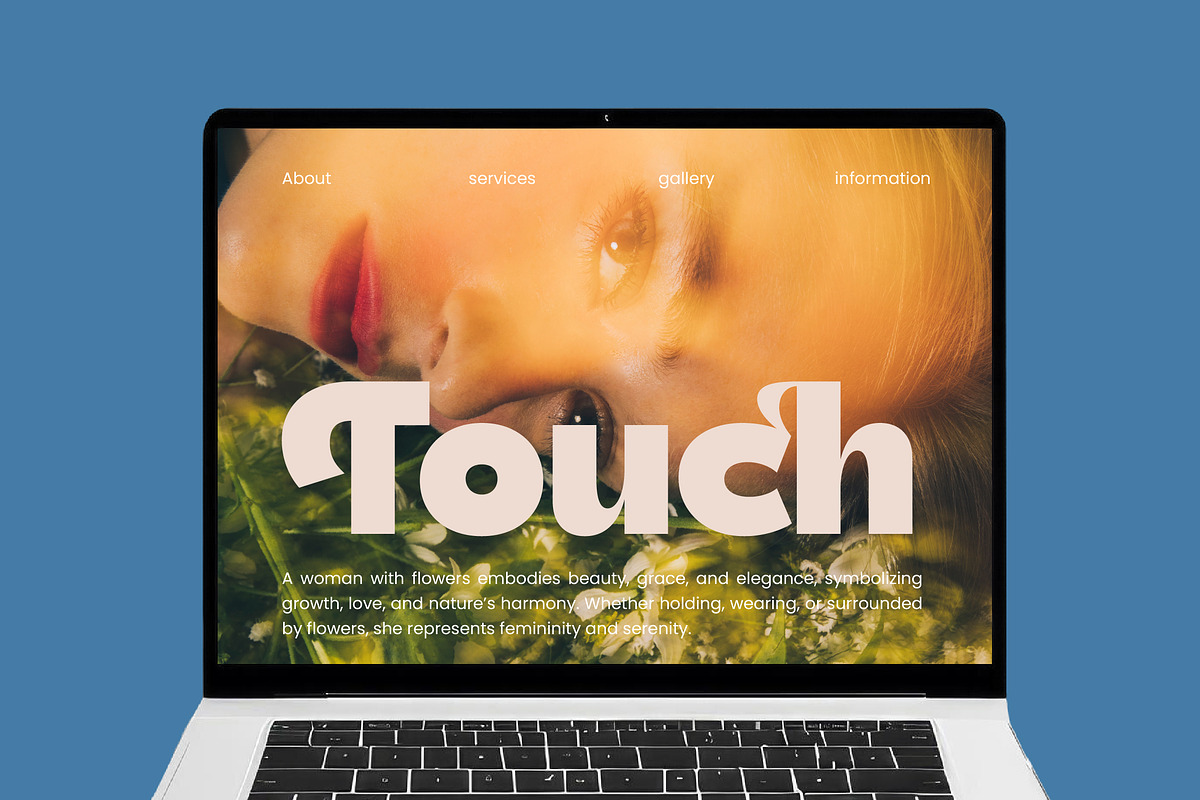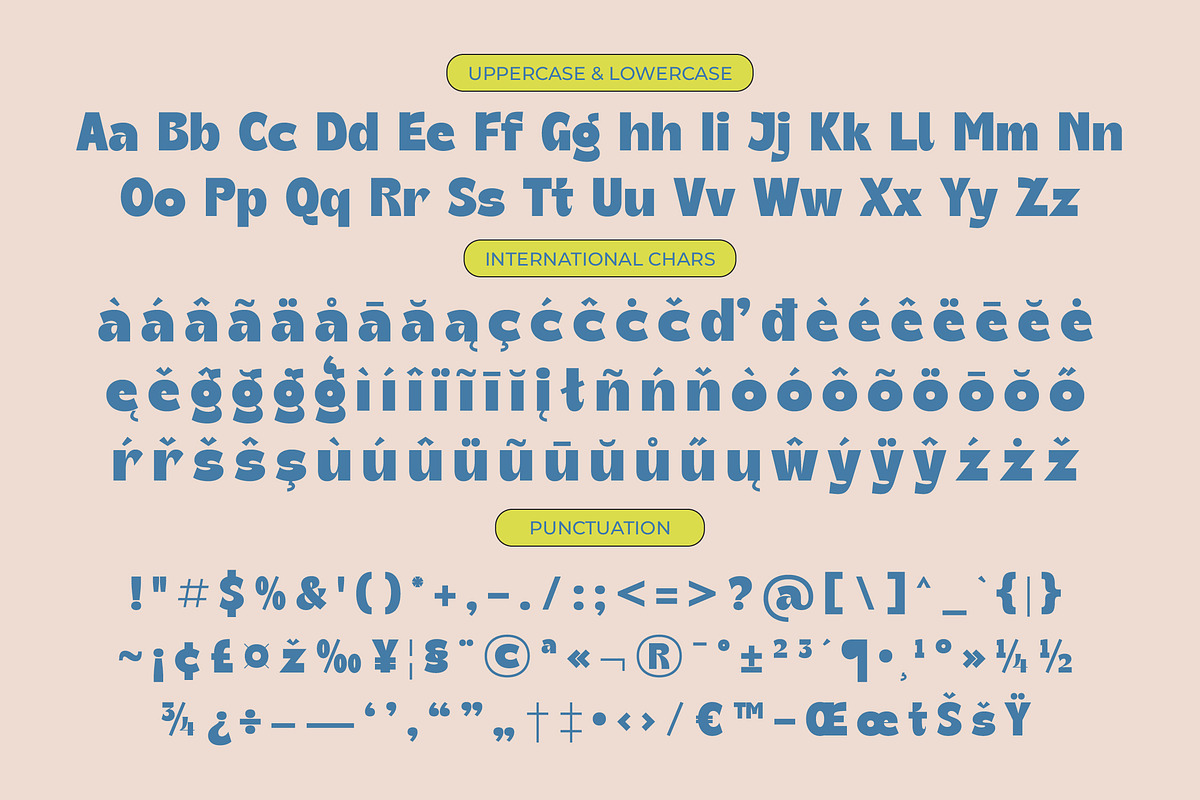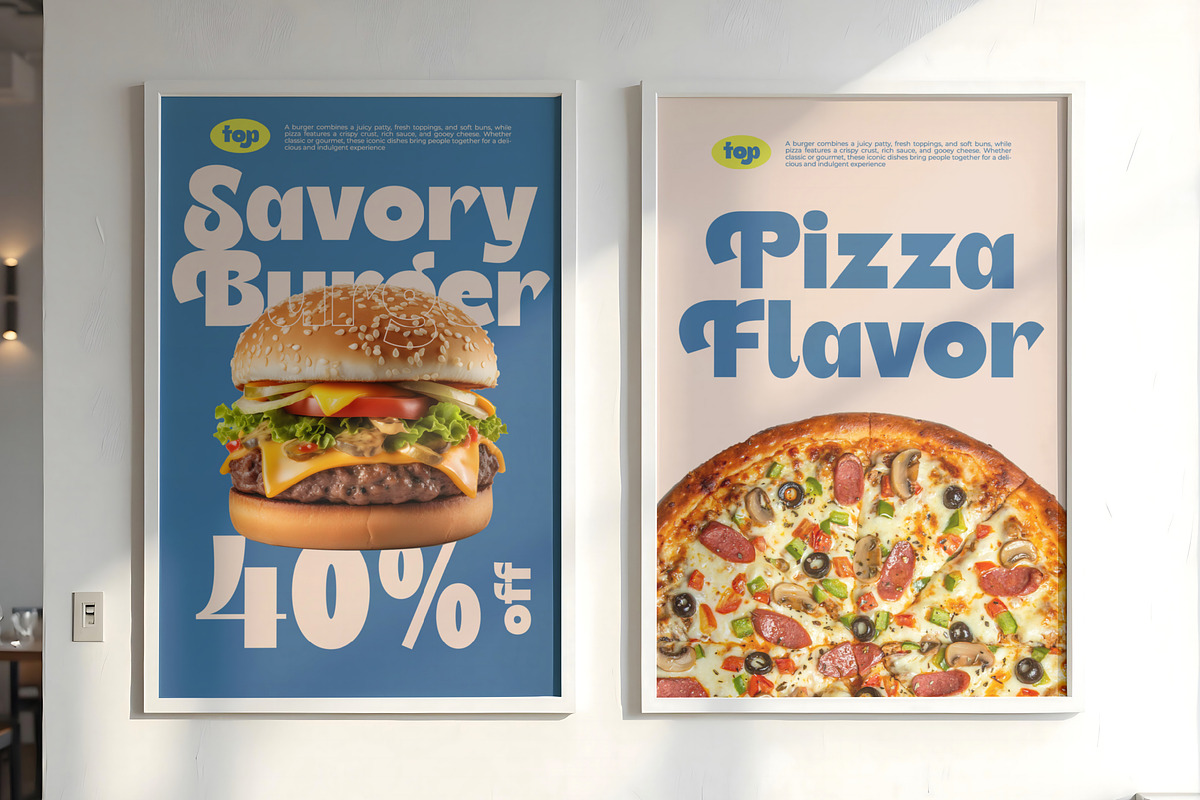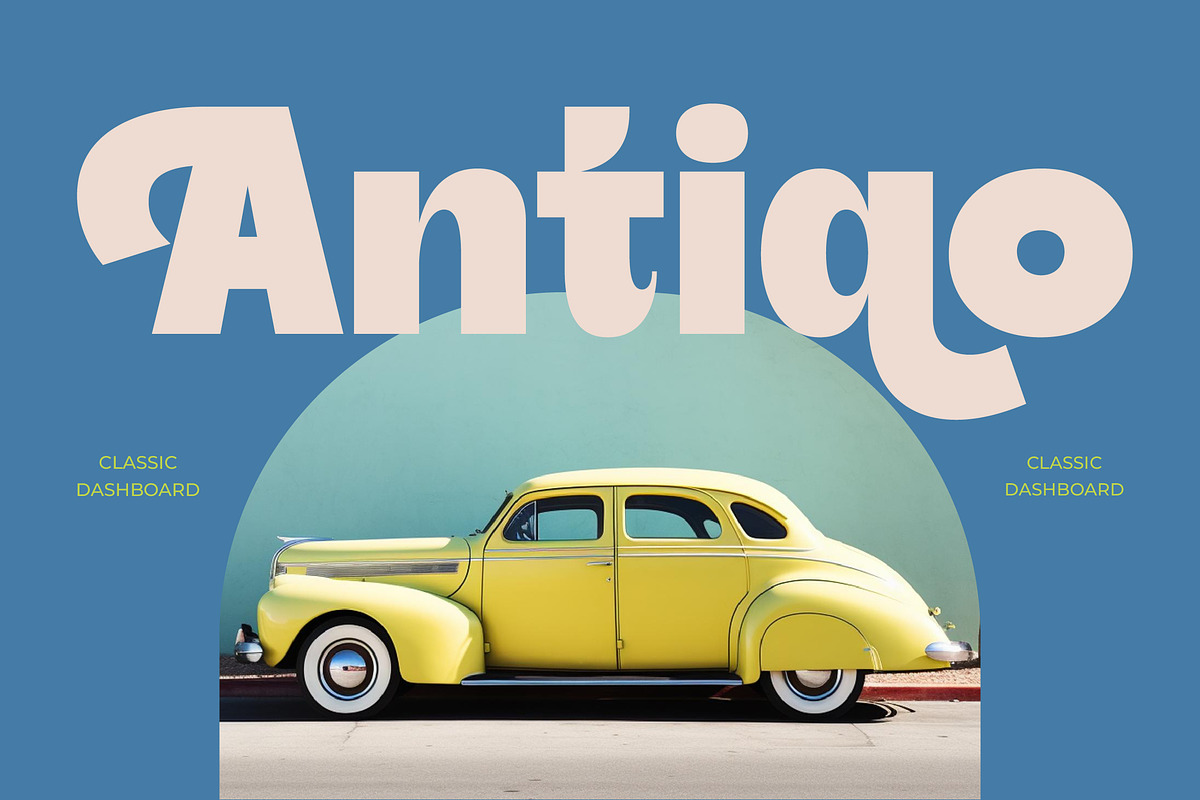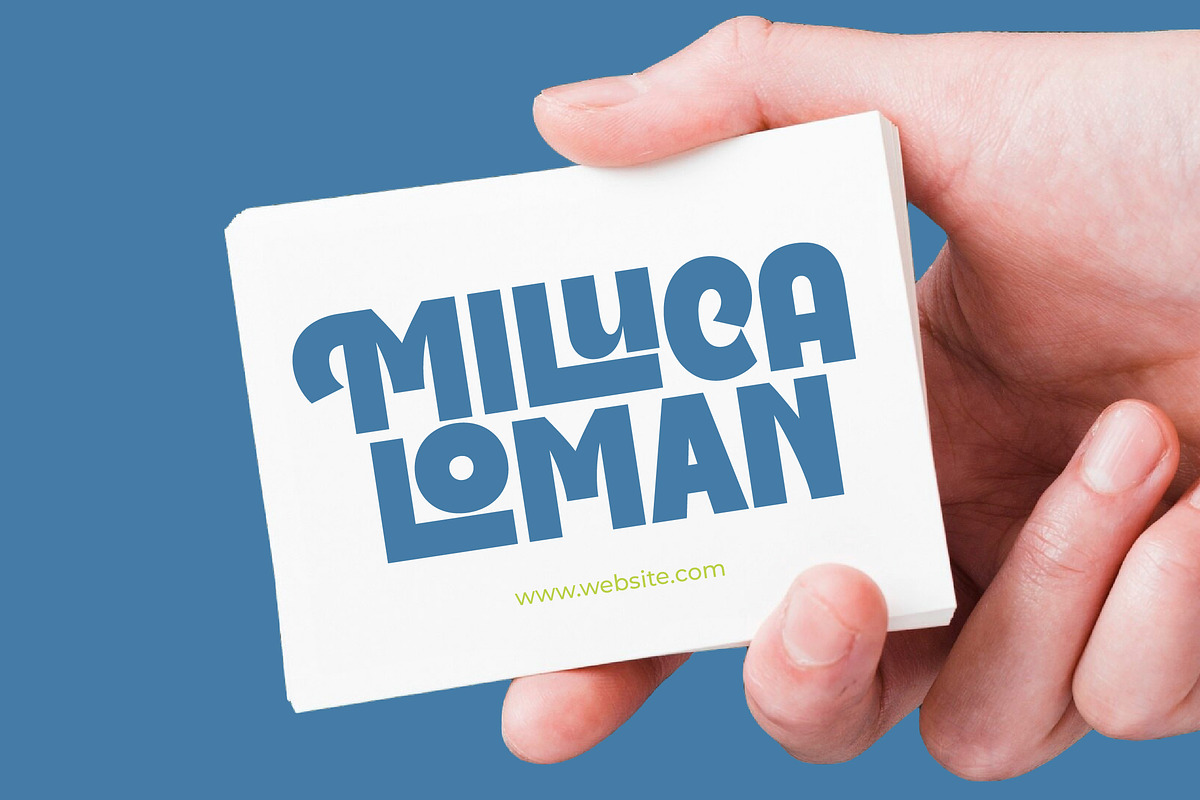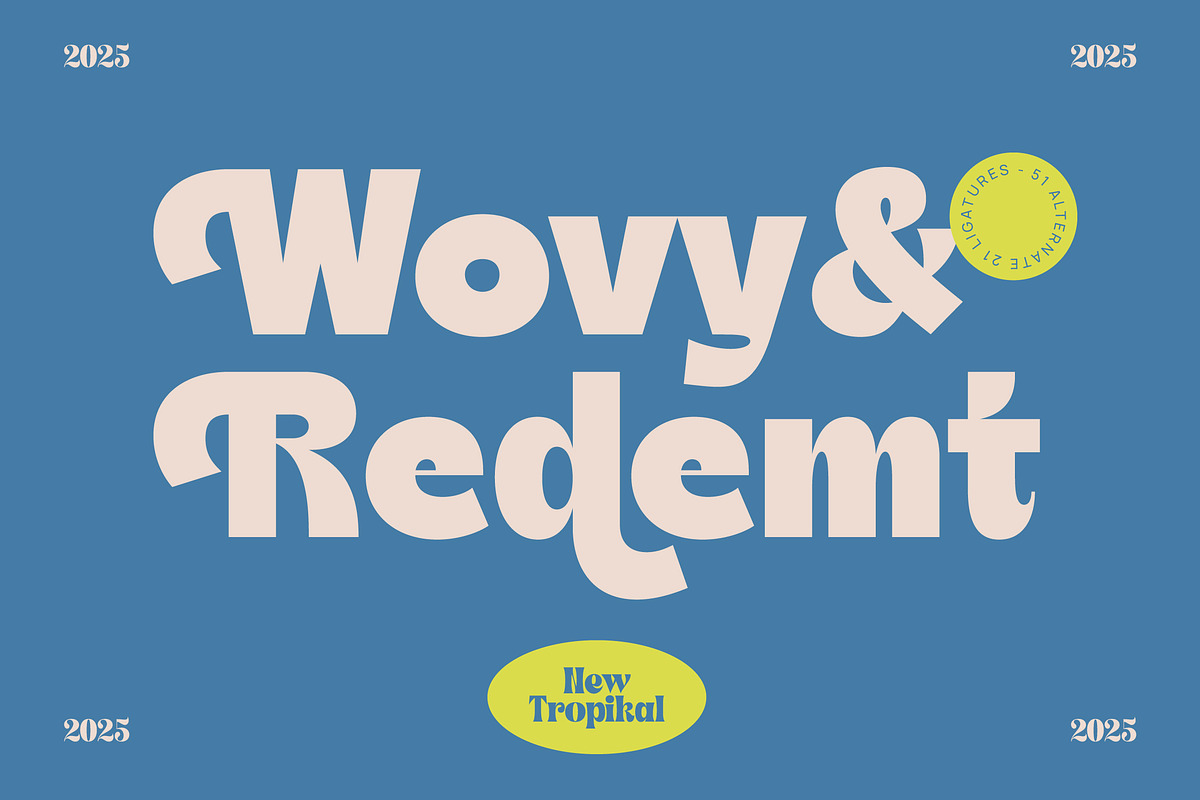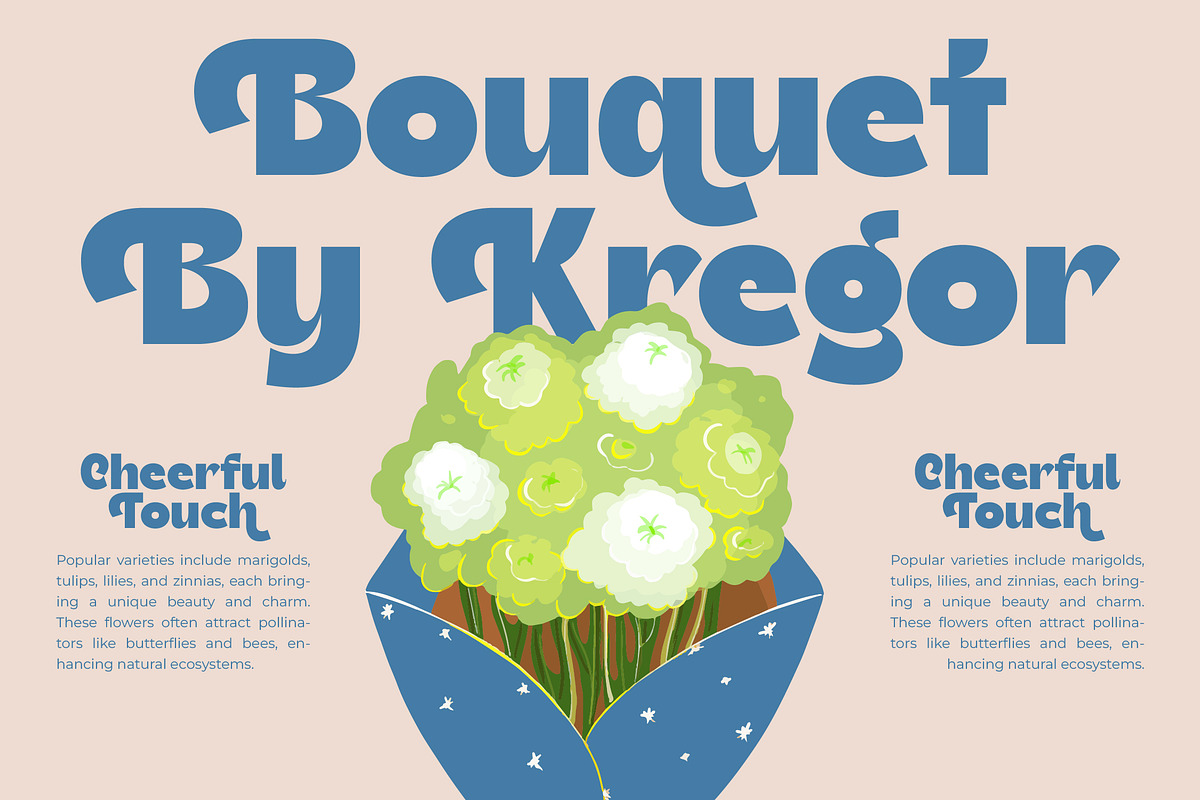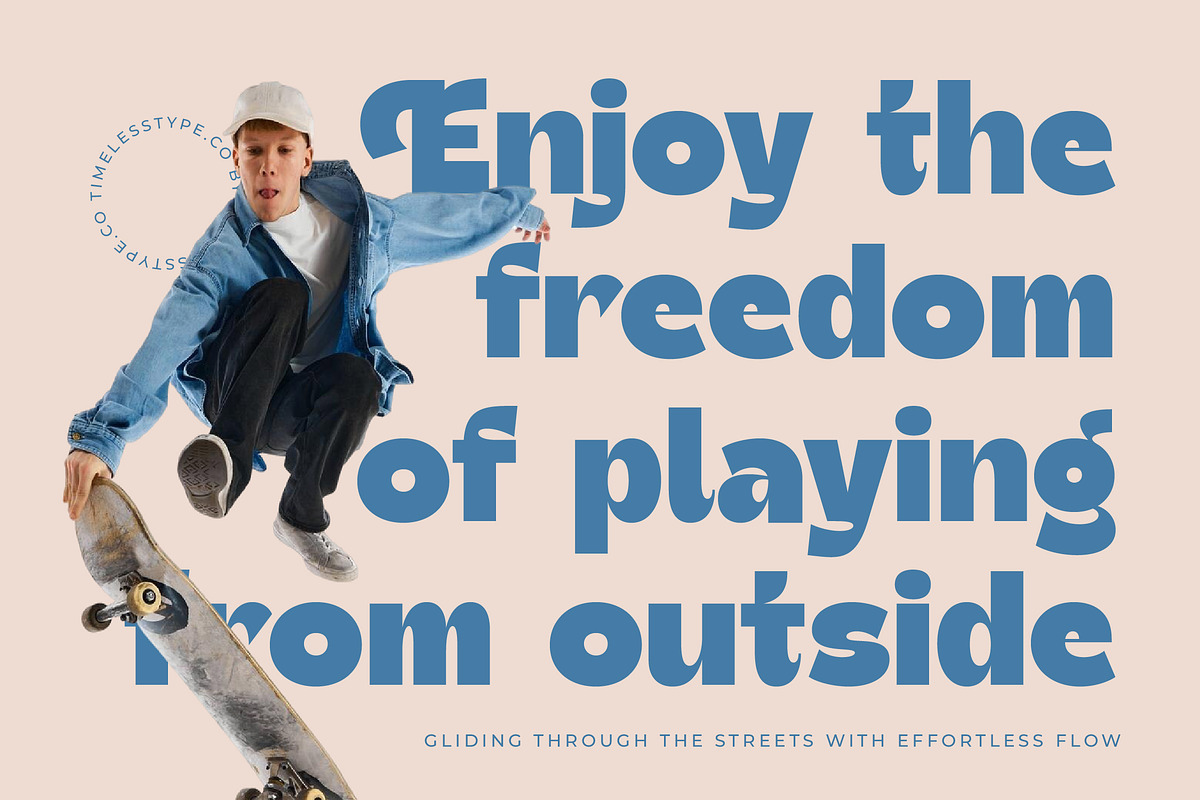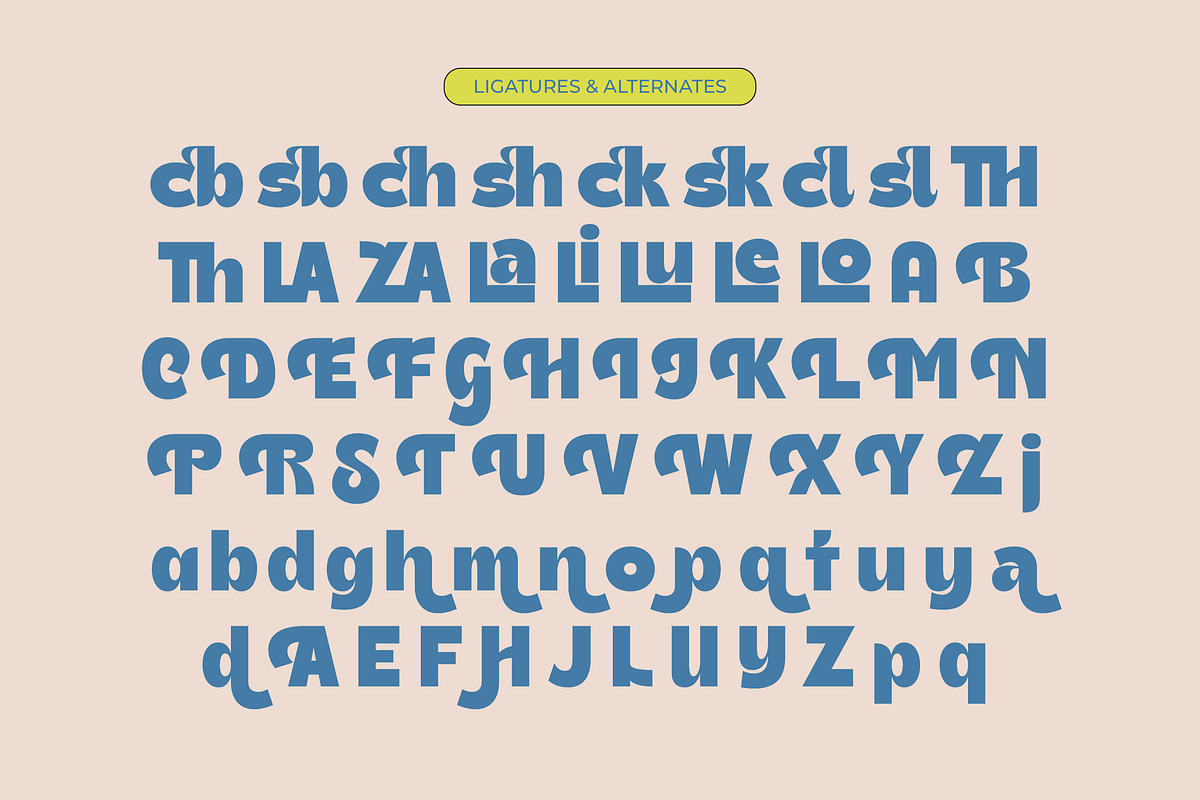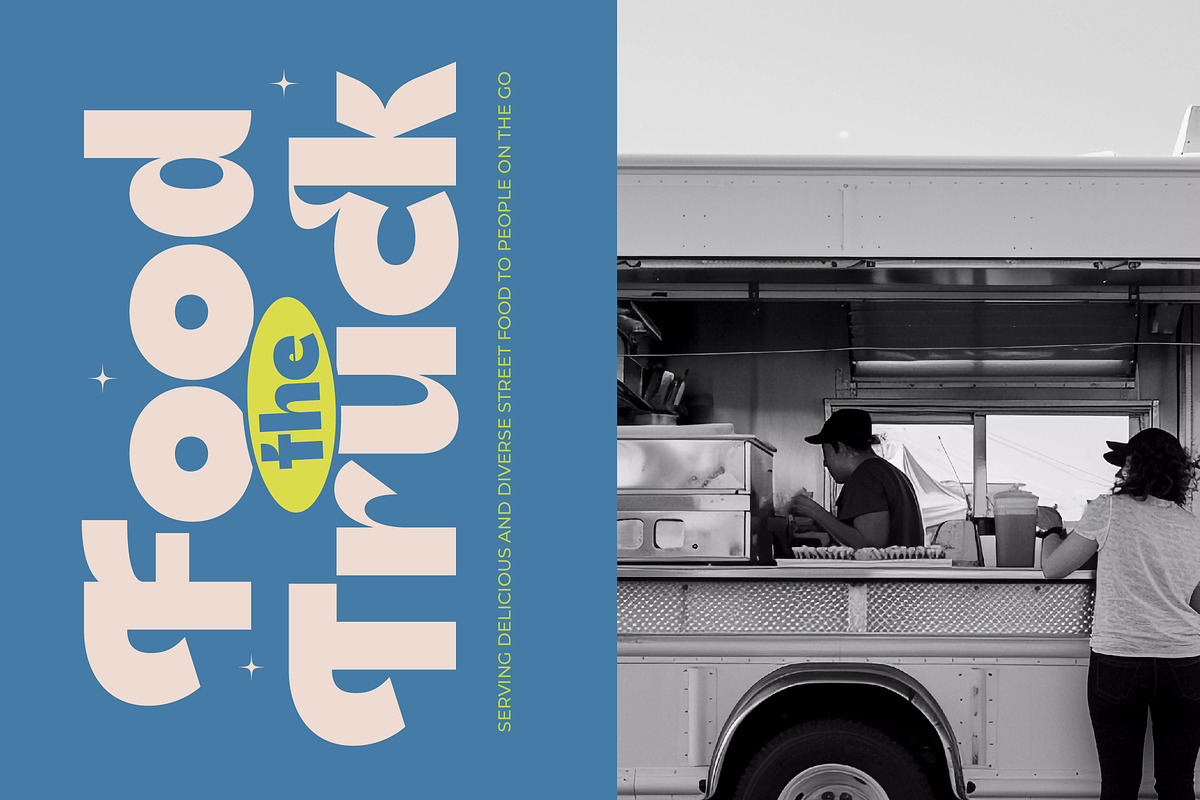
Theleo Blues Bold Retro Sans
Theleo Blues is a rhythmic celebration of bold geometry and soulful curves, designed to make your headlines sing with personality. It captures that perfect balance between vintage nostalgia and contemporary edge, ensuring your designs never go unnoticed.
Inspired by the vibrant record covers and psychedelic posters of the late 1960s, this typeface draws from the energy of the blues era. Its thick strokes and unexpected cut-outs reflect a time when design was experimental, loud, and unapologetically expressive.
This modern serif display alternative brings a level of luxury typography to any project, offering a high-contrast serif feel through its heavy weights and sharp counters. It is an editorial font crafted for maximum branding impact, providing a distinct voice that demands attention in a crowded marketplace.
Tapping into the current modern serif trend, this typeface elevates the aesthetic of editorial display fonts through its unique construction. It stands as a prime example of character-driven typography, catering to designers who want to move beyond the ordinary and embrace bold, expressive letterforms.
Perfectly suited for high-end logo design and comprehensive branding systems, this font shines in editorial layouts and bold packaging. Whether you are designing for a chic wedding invitation or a high-octane fashion magazine, its versatility across print and digital media is unmatched.
This package includes an extensive set of 21 ligatures and 51 alternates to give your text a custom, hand-lettered look. With full support for international characters and multilingual accents, it ensures your message reaches a global audience with ease, featuring no swashes but providing ample stylistic variety.
- Ligature 21 Alternate 51